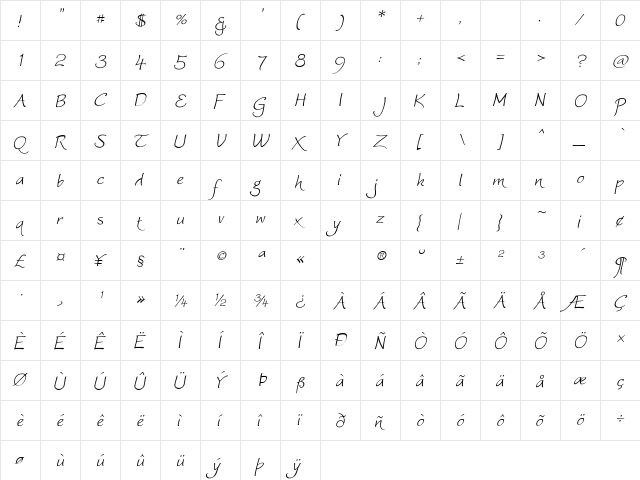
Worstveld Sling Extra Oblique Regular
Design Context for Worstveld Sling Extra Oblique Typeface
Worstveld Sling Extra Oblique offers clean, dependable letterforms without strong stylistic allegiance, making it a practical choice for designers who need flexibility. Its italic angle brings a sense of urgency and motion to the letterforms.
Pro Tip: Use Worstveld Sling Extra Oblique for emphasis, pull quotes, and subheadings where its slanted energy can add rhythm to the layout.